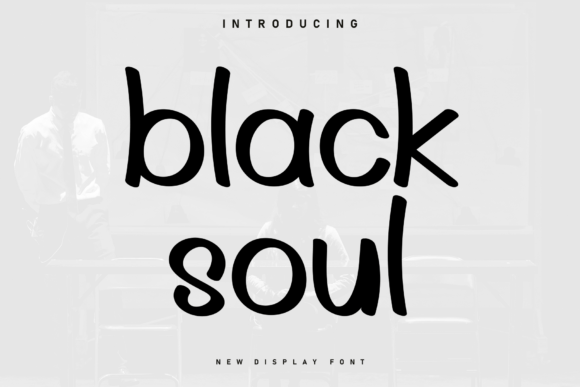
The Elusive Perfect Font: My Encounter with Black Soul
I’ll never forget the time I was working on a luxury fashion brand’s logo design. The client wanted something elegant, yet casual; sophisticated, yet sporty. I spent hours scouring font libraries, but nothing seemed to fit the bill. That was until I stumbled upon Black Soul, a handwritten font that looked like it was drawn with a marker. ✨ It was love at first sight!
Black Soul has since become one of my go-to fonts for projects that require a touch of luxury and a dash of casualness. In this article, I’ll share my honest review of the font, provide a practical guide on how to use it, and explore similar fonts that might tickle your fancy.
An Honest Review of Black Soul
- ✨ Relaxed and sporty feel: Black Soul has a unique ability to convey a sense of casual sophistication, making it perfect for luxury brands, fashion designs, and wedding supplies.
- ✅ Versatile: This font can be used for a wide range of design projects, from logos and branding to greeting cards and marketing promotions.
- 💫 Elegant yet casual: Black Soul strikes the perfect balance between elegance and casualness, making it suitable for designs that require a touch of luxury.
While Black Soul is an amazing font, it’s not without its quirks. 🤔 Here are a few things to keep in mind:
- ⚠️ Limited use of OpenType features: Black Soul has some OpenType features, but they’re not as extensive as some other fonts.
- ⚠️ Glyph limitations: The font has a limited number of glyphs, which might not be sufficient for certain languages or design projects.
If you love Black Soul, you might also enjoy these similar fonts:
- Pacifico: A beautiful, elegant script font with a relaxed feel. Perfect for luxury brands, wedding designs, and marketing promotions.
- Great Vibes: A modern script font with a sporty, casual feel. Great for fashion designs, lookbooks, and greeting cards.
- Alex Brush: A elegant, handwritten font with a sophisticated feel. Suitable for luxury brands, wedding designs, and high-end marketing promotions.
- Lobster: A stylish, elegant script font with a touch of sophistication. Perfect for luxury brands, wedding designs, and high-end marketing promotions.
The Story Behind Black Soul
Black Soul was designed by a talented font designer who’s passionate about creating unique, elegant fonts. The designer’s inspiration for Black Soul came from a combination of traditional marker-drawn lettering and modern digital design. The result is a font that’s both elegant and casual, sophisticated and sporty.
| Font Name | Black Soul Font |
| Author | Berkah Shop |
Q: What is Black Soul font?
A: Black Soul is a handwritten font that looks like it was drawn with a marker. It has a relaxed and sporty feel, making it perfect for luxury brands, fashion designs, and wedding supplies.
Q: What design projects is Black Soul suitable for?
A: Black Soul is suitable for a wide range of design projects, including logos, branding, wedding supplies, greeting cards, fashion designs, lookbooks, and marketing promotions.